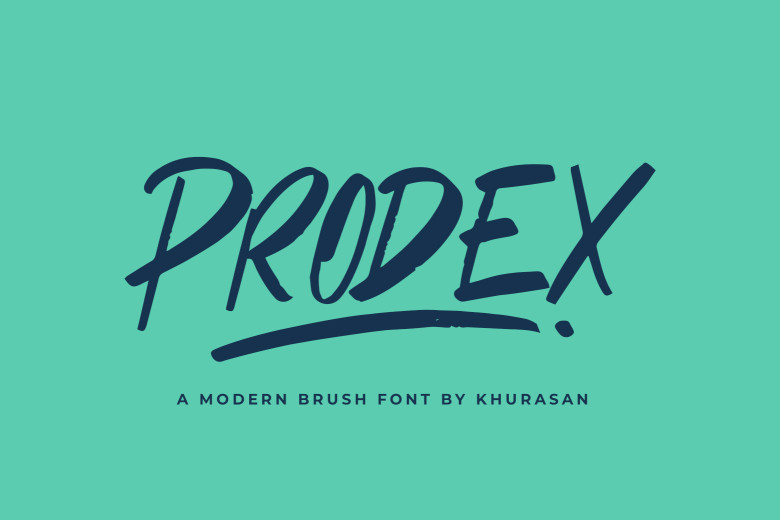
Prodex Font
Prodex Brush Font is a bold Brush font designed specifically for posters, magazine covers, bookcovers, banners and more! Use its handwritten style font for beautiful designs on posters, magazine covers, bookcovers and banners! Add Prodex into your project ideas to see it stand out!
Prodex Brush Script Font